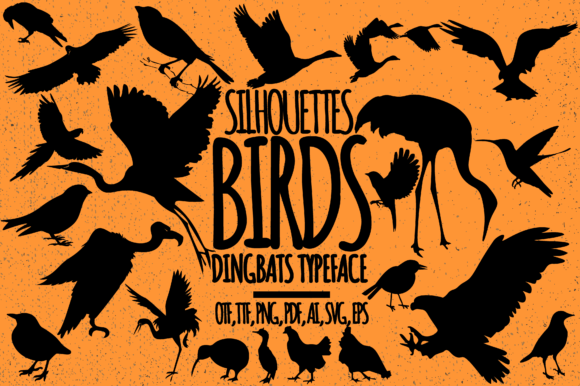
The Bird’s Eye View: Uncovering the Charm of Birds Font
I’ll never forget the time I was working on a branding project for a local outdoor gear store. My client wanted a logo that was both adventurous and eco-friendly, but I was struggling to find the right font to convey that message. That’s when I stumbled upon Birds Font, a unique and original dingbats font that would change the game for me. In this article, I’ll share my experience with Birds Font, its features, and how to make the most of it in your designs.
Birds Font has been a delightful surprise in my design toolkit. Here’s what I love about it:
- ✨ Unique and original bird designs that add a touch of whimsy to any project
- ✅ Highly versatile and suitable for various branding projects, from logos to t-shirt printing and sport designs
- 💡 Outstanding in a wide range of contexts, from digital to print
Of course, no font is perfect, and Birds Font has a few quirks:
- 🤔 Limited character set, which might require some creative workaround for longer texts
- ⚠️ Some bird designs might not be suitable for very small font sizes or low-resolution images
The Story Behind Birds Font
Birds Font was created by a talented type designer who wanted to capture the beauty and diversity of birds in a unique and artistic way. Inspired by their own birdwatching adventures, they crafted a font that would bring a touch of nature to any design project. The result is a charming and versatile font that’s perfect for creative projects.
| Font Name | Birds Font |
| Author | Minimalistartstudio |
| What type of projects is Birds Font best suited for? | Birds Font is ideal for branding projects, logos, t-shirt printing, sport designs, and any creative project that needs a touch of nature and whimsy. |
| Is Birds Font available in different styles or weights? | Currently, Birds Font is available in a single style, but the designer may release variations in the future. |